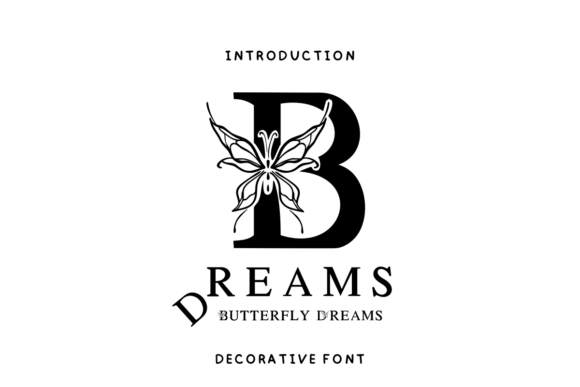
Butterfly Dreams Font: Elevate Your Design with Whimsical Elegance
In the world of typography, few fonts manage to strike a balance between classic sophistication and playful charm. Butterfly Dreams Font is one such exceptional typeface that seamlessly merges traditional serif elegance with whimsical elements, making it perfect for a variety of design applications. This delicate decorative serif font features a gracefully integrated butterfly into its capital โB,โ adding a touch of magic and nature-inspired beauty to refined compositions.
What is Butterfly Dreams Font?
Butterfly Dreams Font is a unique and captivating typeface designed to bring a sense of luxury, femininity, and elegance to various design projects. Its distinctive featureโa butterfly integrated into the capital letter โBโโsets it apart from more conventional fonts. This font is not just a tool for communication; it’s a statement piece that can elevate the aesthetic value of any design.
Key Features of Butterfly Dreams Font
- Delicate Decorative Serif: The font boasts a classic serif structure with delicate decorative elements that add to its elegance.
- Integrated Butterfly Design: The capital โBโ features a gracefully designed butterfly, adding a whimsical touch.
- Feminine and Luxurious: Its design makes it ideal for projects that require a feminine, luxurious feel.
- Versatile: Suitable for a wide range of applications, from branding and packaging to wedding materials and elegant designs.
Use Cases for Butterfly Dreams Font
The versatility of Butterfly Dreams Font makes it an excellent choice for various design projects. Here are some of the most suitable use cases:
- Feminine Branding: For brands that want to convey elegance, sophistication, and a touch of femininity, this font is an excellent choice. It works well for logos, business cards, and letterheads.
- Luxury Packaging: The font’s luxurious and elegant feel makes it perfect for high-end product packaging, adding a premium look to any product.
- Wedding Materials: Wedding planners, photographers, and brides looking for elegant and unique stationery will find Butterfly Dreams Font to be a beautiful addition to their wedding invitations, menus, and thank-you cards.
- Elegant Design Projects: Whether it’s for a website, a magazine, or an advertising campaign, this font can add a sophisticated and refined touch to any design project.
Benefits of Using Butterfly Dreams Font
Choosing Butterfly Dreams Font for your design projects comes with several benefits:
- Uniqueness: The integrated butterfly design in the capital โBโ makes your text stand out.
- Elegance: It adds a level of sophistication and elegance to your designs.
- Versatility: Its applicability across various design projects makes it a valuable addition to any designerโs toolkit.
- Emotional Connection: The whimsical touch of the butterfly can evoke feelings of wonder and beauty, creating an emotional connection with your audience.
How to Use Butterfly Dreams Font Effectively
To maximize the impact of Butterfly Dreams Font, consider the following tips:
- Pair with Complementary Fonts: Use it alongside simpler sans-serif fonts for body text to create a balanced and harmonious design.
- Apply to Key Elements: Use the font for headings, titles, or key messages to draw attention and add elegance.
- Experiment with Colors: While the font itself is elegant, experimenting with pastel or soft colors can enhance its whimsical and feminine appeal.
- Consider Size and Weight: Ensure the font size and weight are chosen appropriately for the medium and the message you want to convey.
Butterfly Dreams Font is a unique and captivating typeface that brings a blend of classic elegance and whimsical charm to the world of typography. Its delicate decorative serif design, coupled with the gracefully integrated butterfly in the capital โB,โ makes it an excellent choice for designers looking to add a touch of luxury, femininity, and nature-inspired beauty to their projects. Whether it’s for feminine branding, luxury packaging, wedding materials, or elegant design projects, Butterfly Dreams Font is sure to elevate your designs to new heights of sophistication and appeal.
FAQs About Butterfly Dreams Font
- Q: What makes Butterfly Dreams Font unique?
- A: The integration of a butterfly design into the capital โBโ makes it stand out.
- Q: Is Butterfly Dreams Font suitable for digital use?
- A: Yes, it’s versatile and can be used for both print and digital projects.